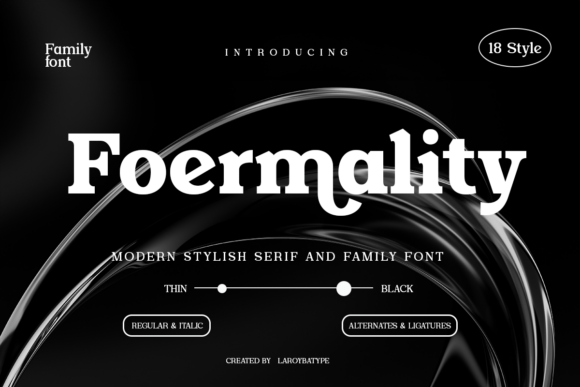
Introducing Foermality Font: The Epitome of Elegance and Versatility
In the realm of typography, few fonts manage to strike a balance between classic sophistication and modern aesthetics. Foermality Font is one such exceptional typeface that embodies elegance, versatility, and style. Designed for discerning designers who seek to infuse their projects with a timeless yet contemporary feel, Foermality is a modern serif font that promises to elevate every creative endeavor.
The Design Philosophy Behind Foermality
Foermality was crafted with a clear vision: to create a font family that seamlessly blends traditional serif elements with modern design sensibilities. This balance makes Foermality an ideal choice for designers who aim to add a touch of sophistication and elegance to their work without compromising on contemporary appeal.
The design process involved meticulous attention to detail, focusing on creating refined letterforms that exude luxury and poise. Each character in the Foermality font family has been carefully crafted to ensure that it not only stands out on its own but also complements the overall aesthetic of any project.
The Foermality Font Family: A Range of Styles for Every Need
One of the standout features of Foermality is its extensive range of styles, offering designers an impressive 18 variations to choose from. The font family includes:
- Thin to Black weights, providing a wide spectrum of tonal values that can be used to create visual hierarchy and emphasis.
- Includes Italics for each weight, adding further versatility and allowing for more nuanced typographic expressions.
This extensive range of styles ensures that Foermality can be adapted to suit a myriad of creative needs, from the subtle and understated to the bold and assertive.
Applications of Foermality: Where Elegance Meets Versatility
The versatility of Foermality makes it an excellent choice for a broad spectrum of design applications. Here are some areas where Foermality truly shines:
- Branding and Logos: Foermality’s elegant and sophisticated appearance makes it perfect for brands looking to establish a refined and luxurious image.
- Magazines and Editorial Design: The font’s readability and classic feel are well-suited for editorial content, adding a touch of sophistication to magazines, newspapers, and digital publications.
- Packaging: For product packaging, Foermality offers a stylish and premium look that can elevate the perceived value of any product.
- Posters and Advertising: The range of weights and styles in Foermality allows for creative flexibility in poster design and advertising, making it easy to grab attention and convey messages effectively.
- Wedding Invitations and Stationery: Foermality’s elegant appearance makes it a popular choice for wedding invitations, stationery, and other formal event materials.
- Fashion Projects: In the fashion world, where style and elegance are paramount, Foermality serves as an excellent tool for designers to convey luxury and sophistication.
- Websites and Social Media Templates: For digital platforms, Foermality’s clarity and readability ensure that content stands out and engages audiences effectively.
Why Choose Foermality?
Foermality is more than just a font; it’s a design solution that offers:
- Elegance: Its classic serif design brings an air of sophistication to any project.
- Versatility: With 18 styles, including Thin to Black weights and Italics, Foermality adapts to any design requirement.
- Readability: Carefully crafted letterforms ensure excellent readability across various mediums.
- Timeless Appeal: Foermality’s design strikes a balance between modern aesthetics and classic elegance, making it suitable for projects with a long lifespan.
Foermality Font stands out as a premier choice for designers looking to imbue their projects with elegance, sophistication, and a modern edge. Its extensive range of styles, combined with its refined and carefully crafted letterforms, makes it an incredibly versatile tool suitable for a wide array of applications. Whether you’re working on branding, editorial design, packaging, or digital content, Foermality promises to elevate your work to new heights of style and professionalism.